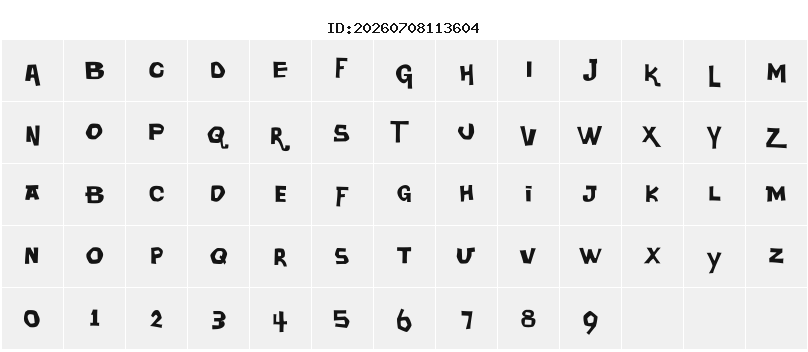
DaddyOSquare Preview
• Font Name: DaddyOSquare
• Font Style: Roman
• Font ID: DTP-DaddyOSquare
• Full Font Name: DaddyOSquare
• PostScript Name: DaddyOSquare
• Character Count: 217
About DaddyOSquare.ttf
DaddyOSquare.ttf is a modern, elegant sans-serif font designed for ultimate readability and visual harmony. Perfect for branding, headlines, web design, and print materials.